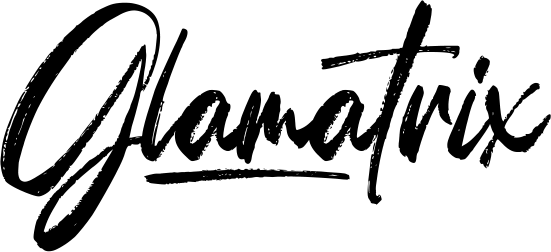
Glamatrix Font
If you are after a script font for your text design, we’ve got you covered. Glamatrix comes in medium and curly characters and works flawlessly for cosmetic products, branding, logos, and many other things. It brings a p…
If you are after a script font for your text design, we’ve got you covered. Glamatrix comes in medium and curly characters and works flawlessly for cosmetic products, branding, logos, and many other things. It brings a positive and neat vibe to your project. Just give it a shot and see how stunning it goes!